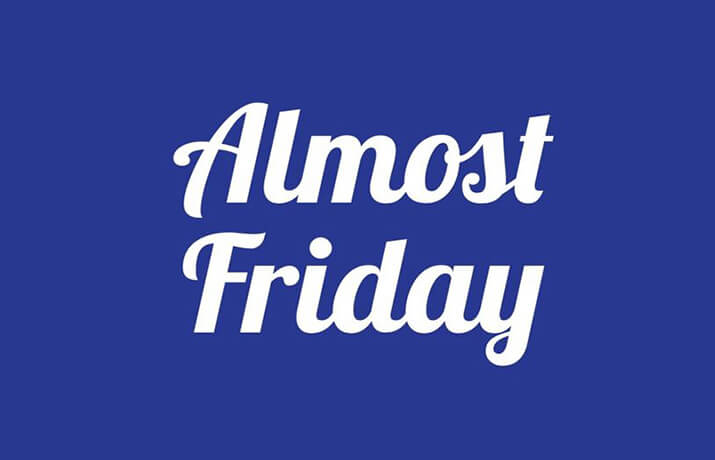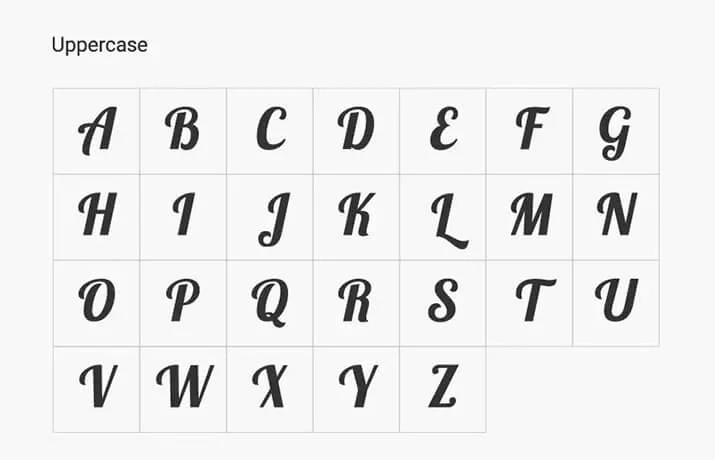
Almost Friday Font is a simple font style that features beautiful curves around the edges of each letter. Unlike other script fonts, it has no extended swashes but offers a bolder letter form.
“Lobster” is the famous font for Almost Friday font for memes, videos, and photography on social media platforms such as Snapchat and Instagram.
It is a bold, condensed script typeface designed by Pablo Implari, a talented type designer from Rosario, Argentina.
The font has many ligatures and alternate characters, giving you many options to choose the best one for you. It is known as New Comic Sans because it is a favorite of many designers.
| Font Name: | Almost Friday Font Family |
| Style: | Script, Display, Typeface |
| Font Designer: | Pablo Implari |
It is ideal for all types of t-shirts and product designs, wall art, cafe banners, posters, flyers, cards, unique emblems, game graphics, product designs, product packaging, special quotes, branding, logotypes, packaging designs, billboards, stickers, etc.